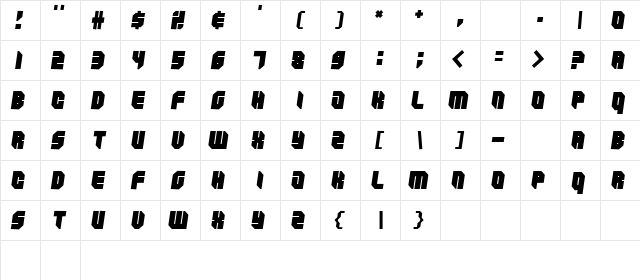
Zipper blues Black Regular
Design Context for Zipper blues Black
Zipper blues Black is a composed and adaptable typeface that performs quietly and consistently across a wide range of design contexts.